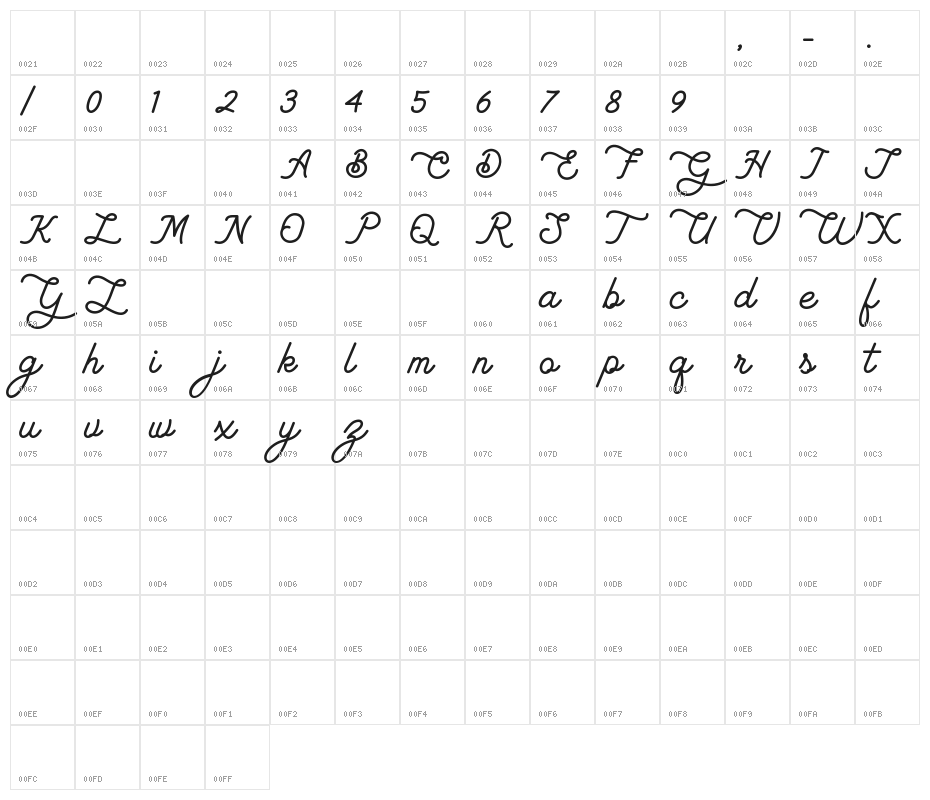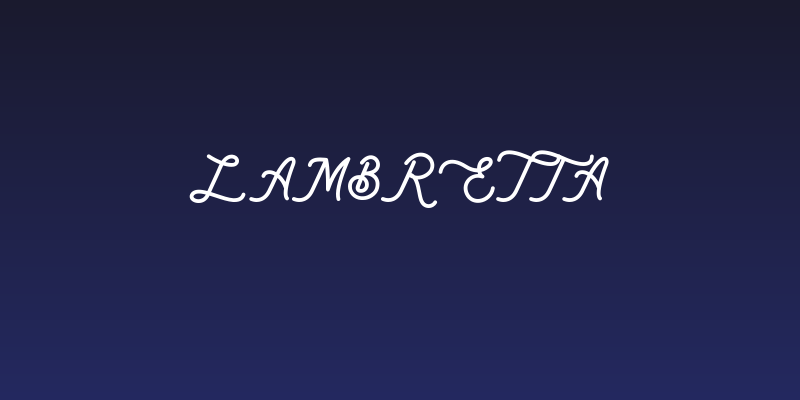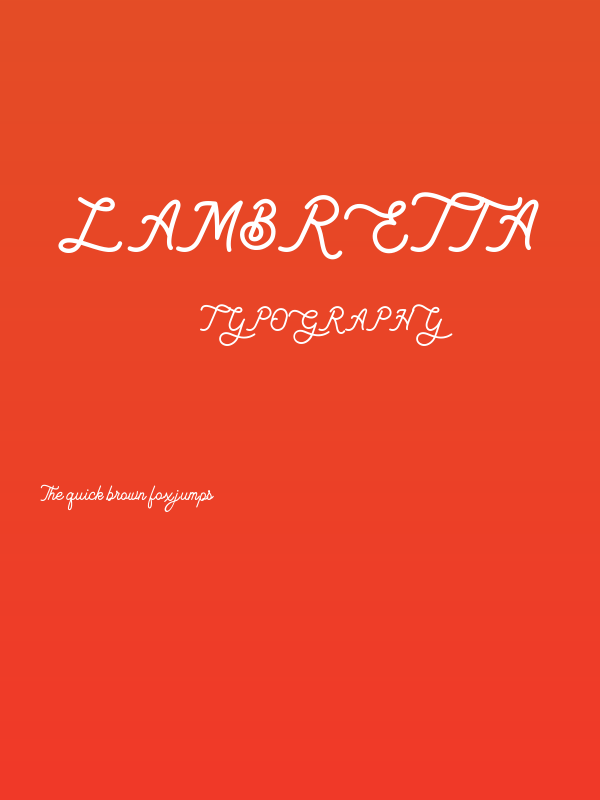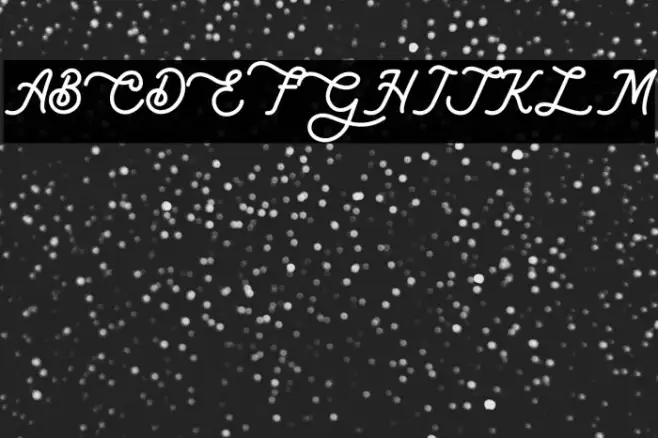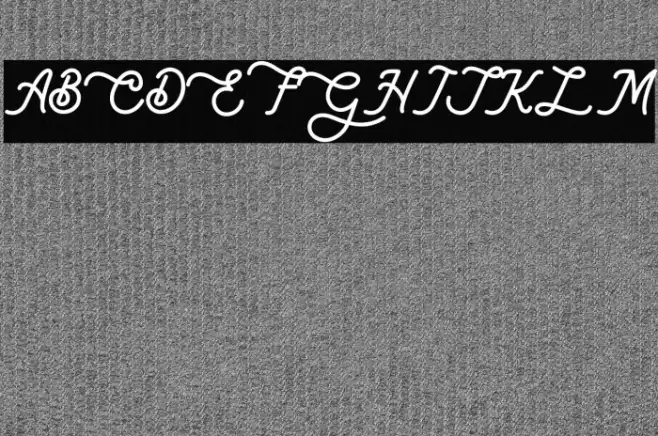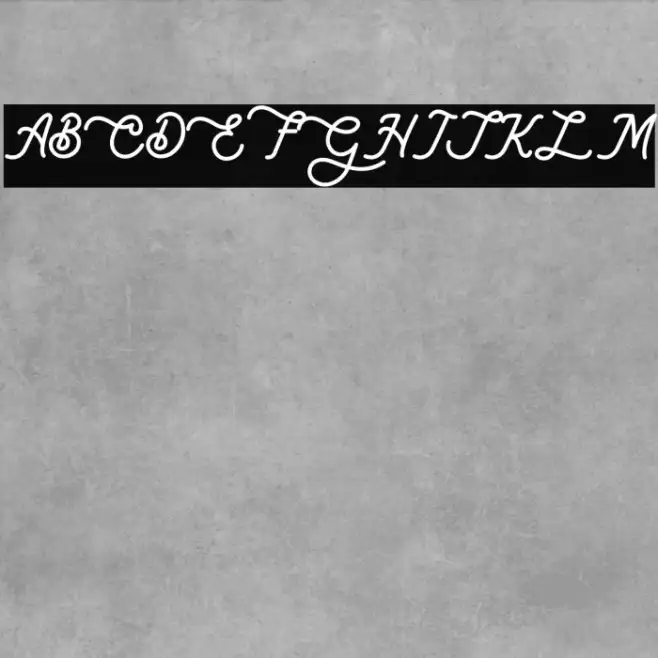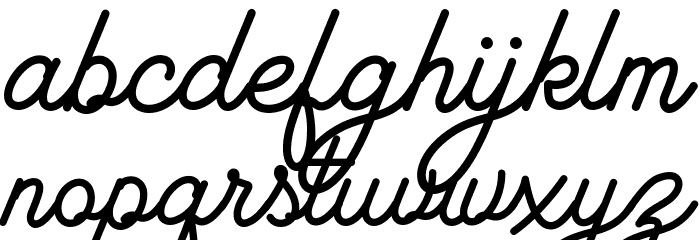
Lambretta Font
Lambretta Description
This font features a flowing, cursive style with elegant loops and swirls, reminiscent of classic calligraphy. The uppercase letters are ornate, with distinctive flourishes that add a touch of sophistication. The lowercase letters maintain a consistent flow, creating a seamless connection between characters. Numbers are styled to match the overall cursive theme, ensuring a cohesive look throughout. The special characters are thoughtfully designed to complement the alphabet, maintaining the font's graceful aesthetic. This font is perfect for projects that require a touch of elegance and sophistication.
| Proposed Projects | Ideal for wedding invitations, elegant branding, greeting cards, and luxury product packaging. |